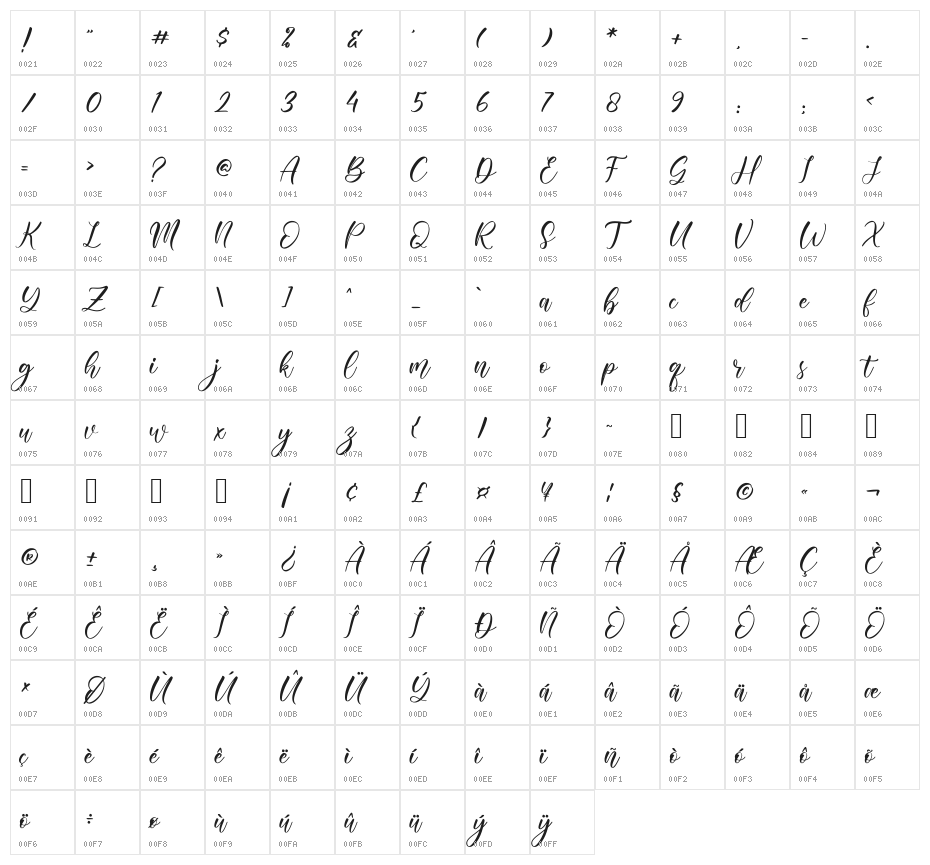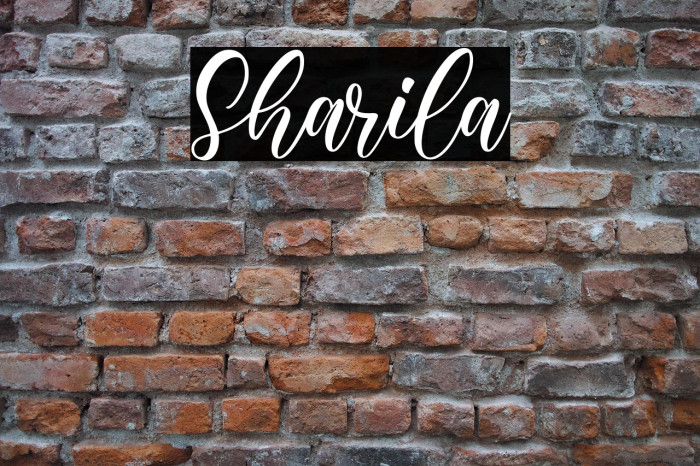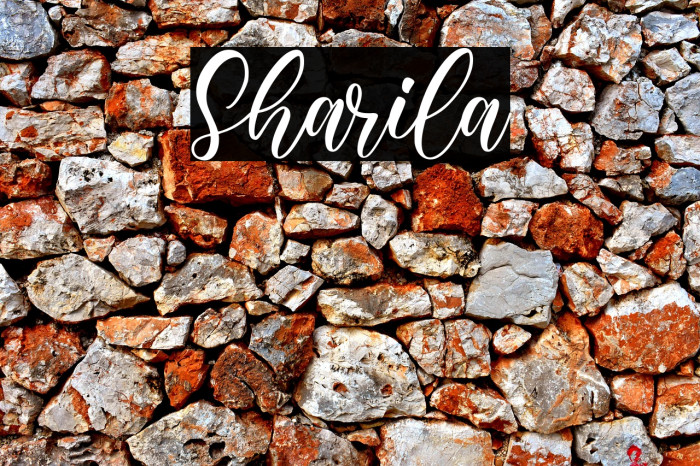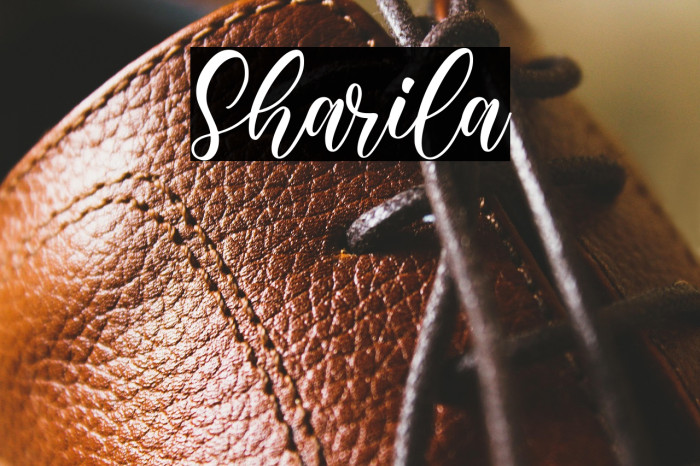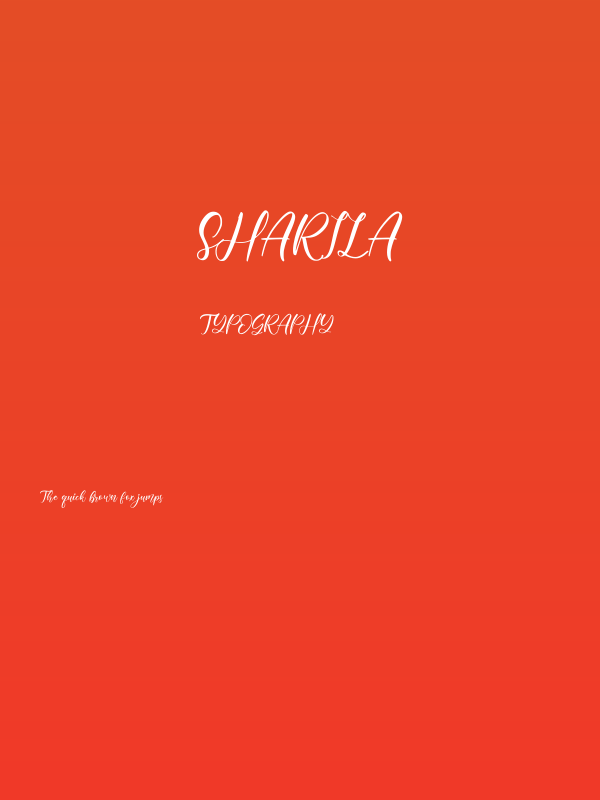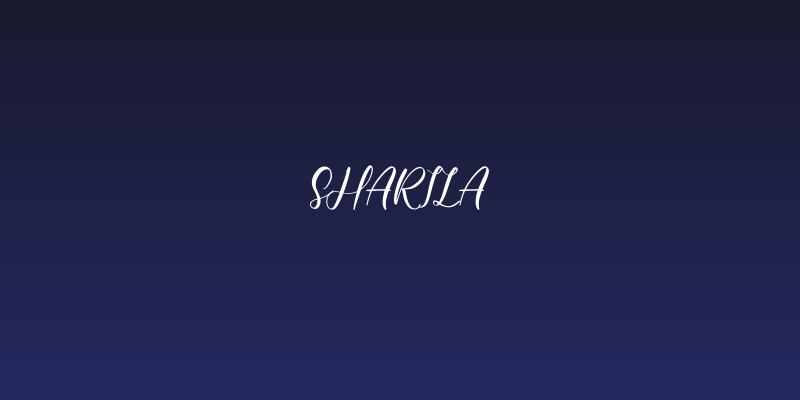
Sharila Font
Sharila Description
This elegant script font features fluid, cursive strokes that convey a sense of sophistication and grace. The uppercase letters are characterized by sweeping curves and flourishes, while the lowercase letters maintain a consistent flow with delicate loops and connections. The numerals are styled to match the overall cursive theme, adding a touch of elegance to any numerical display. Special characters are thoughtfully designed to integrate seamlessly with the alphabet, ensuring a cohesive look across all text. The font's artistic flair makes it ideal for projects that require a personal, handwritten touch.
Overall StyleElegant, Artistic
Use CaseLogos, Invitations, Decorative text
Proposed ProjectsIdeal for wedding invitations, elegant branding, personal stationery, and artistic projects.